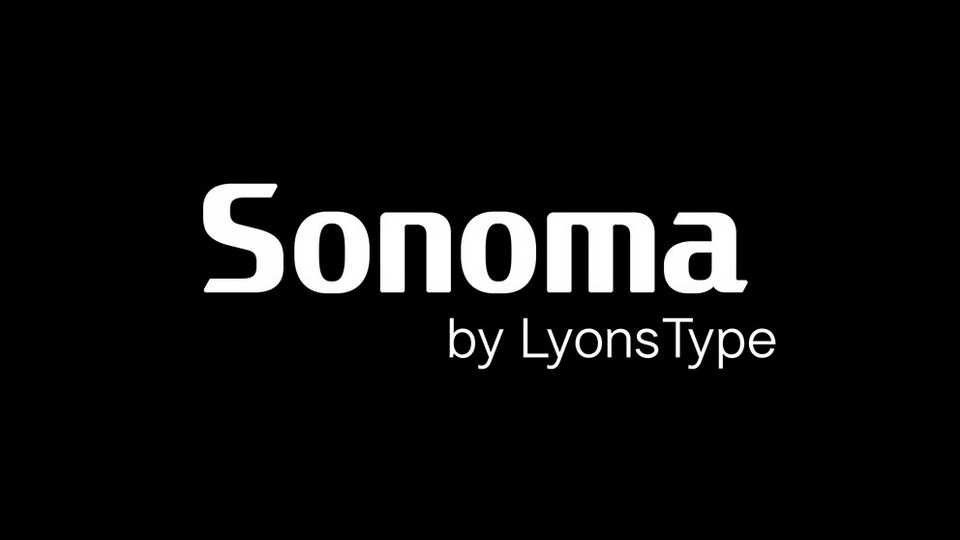
Download LT Sonoma font, a modern sans-serif typeface named after the latest version of a Mac. Crafted with geometric perfection, this typeface seamlessly merges mechanical aesthetics with contemporary design.